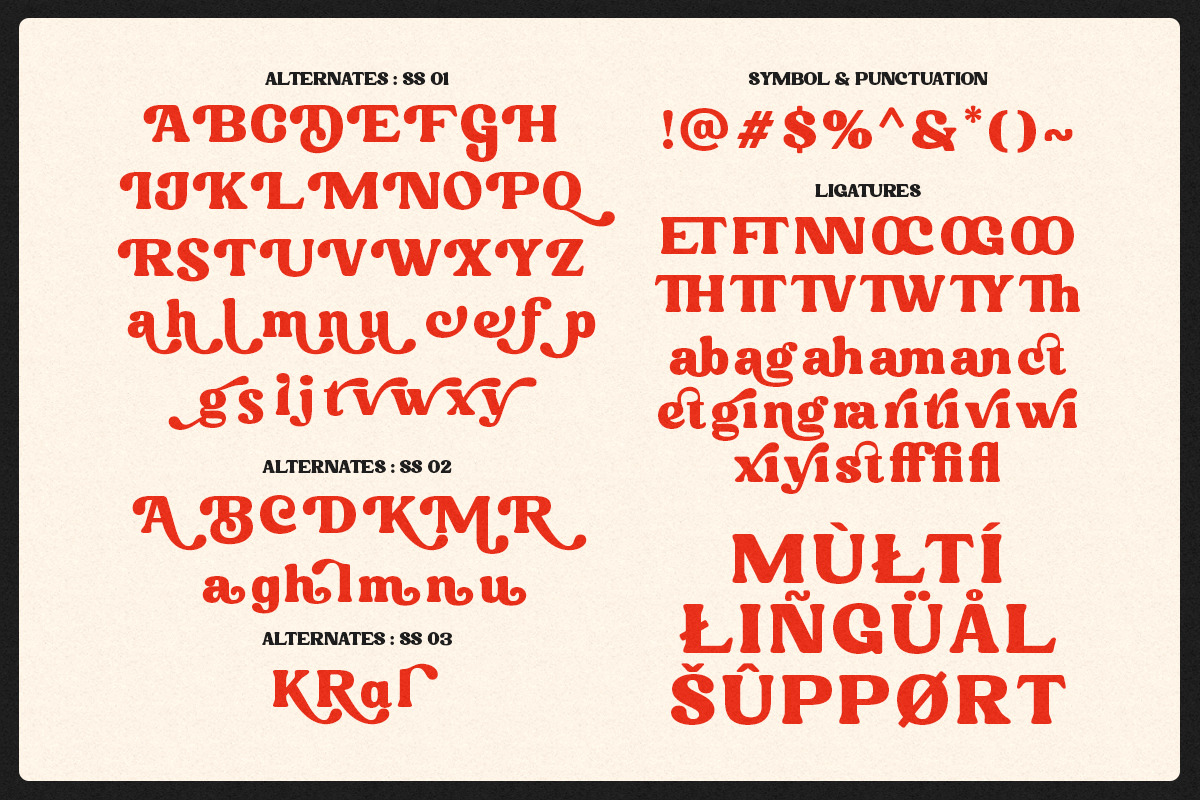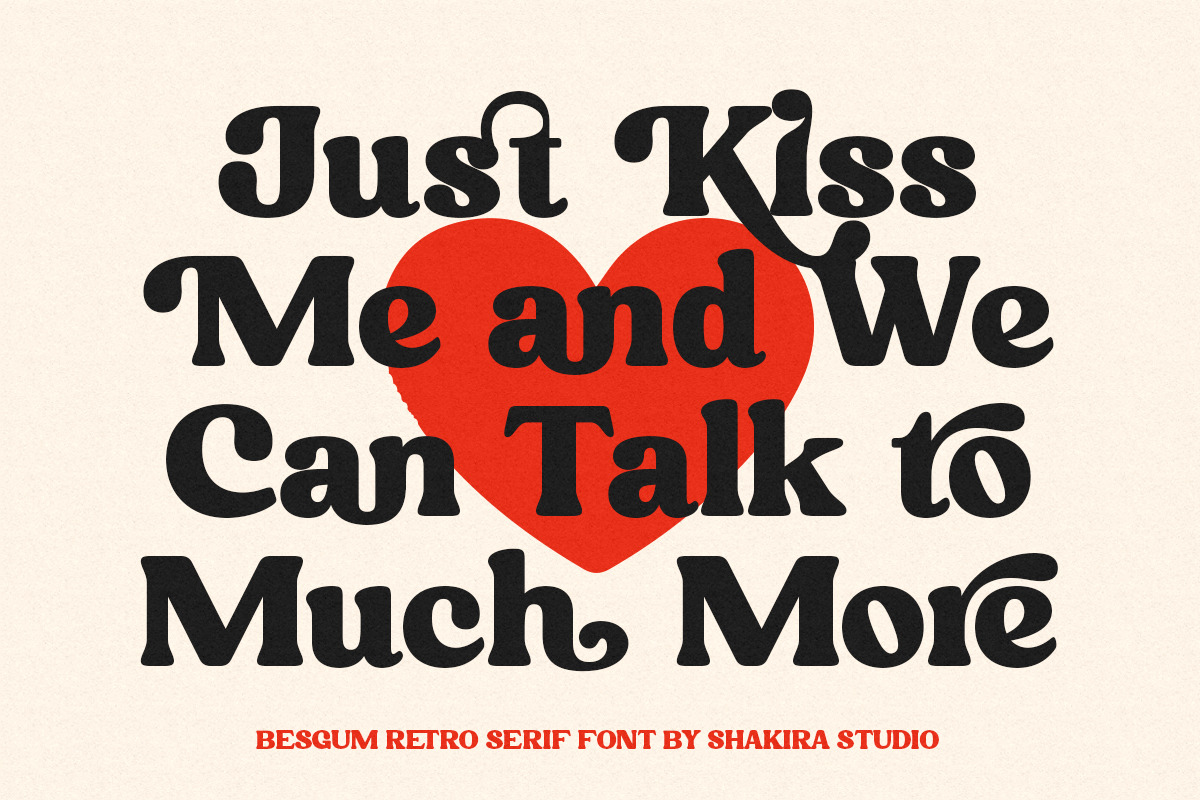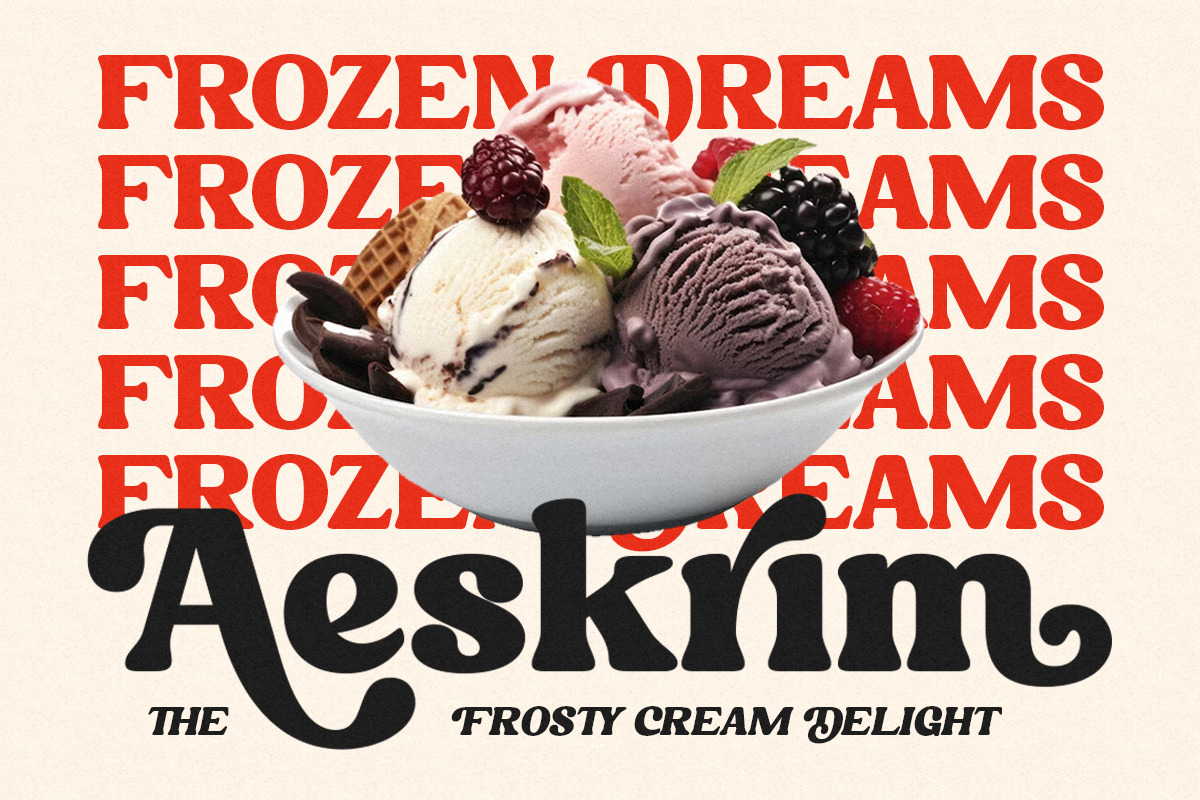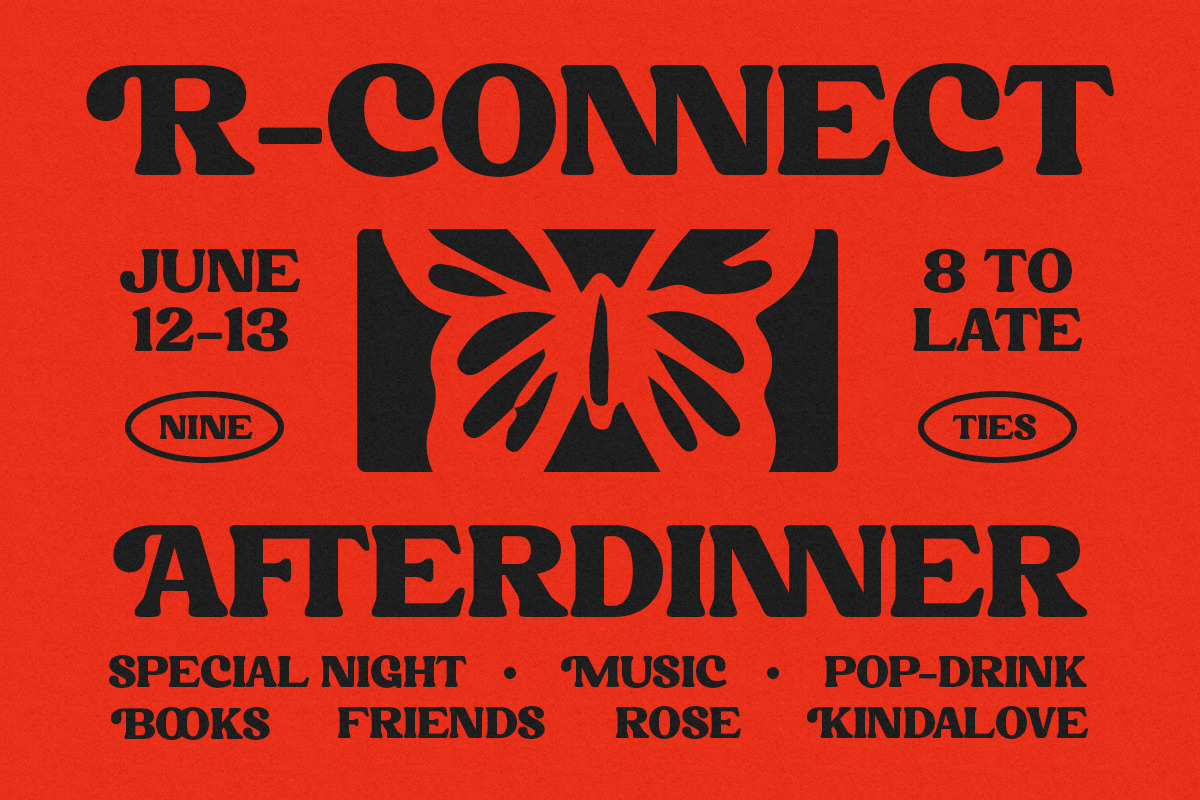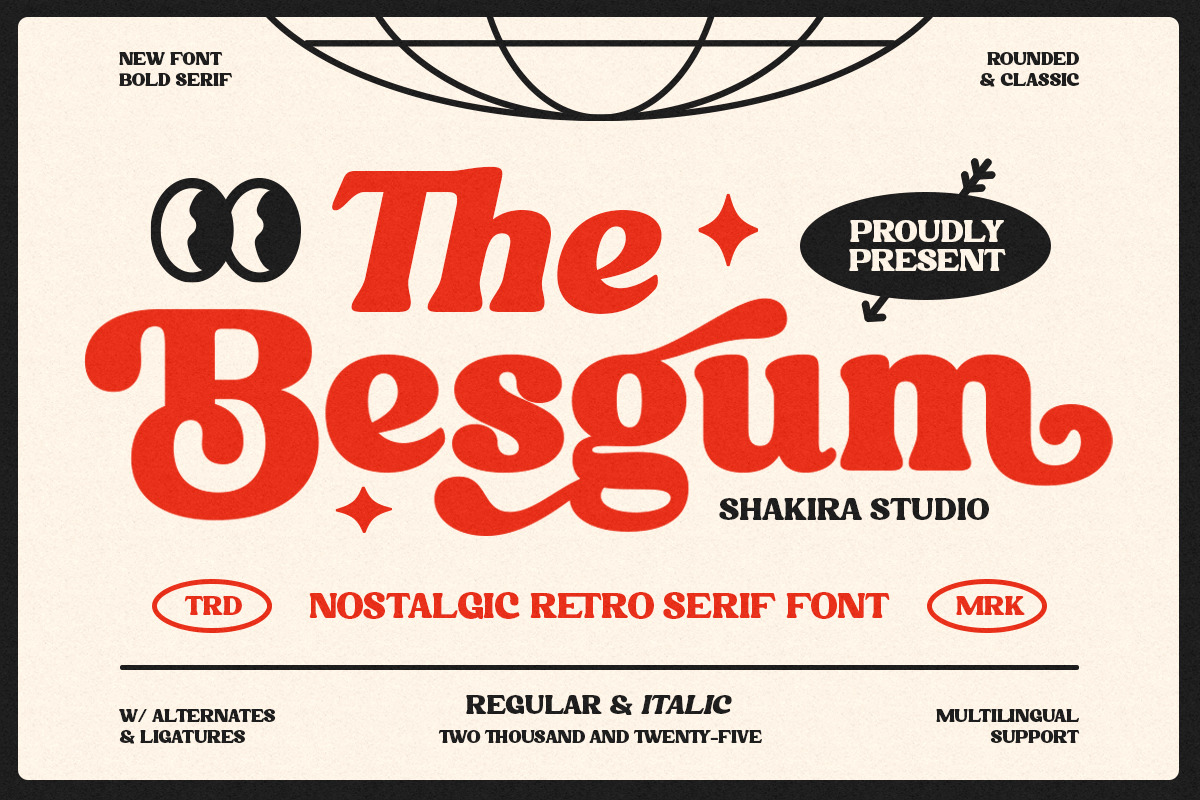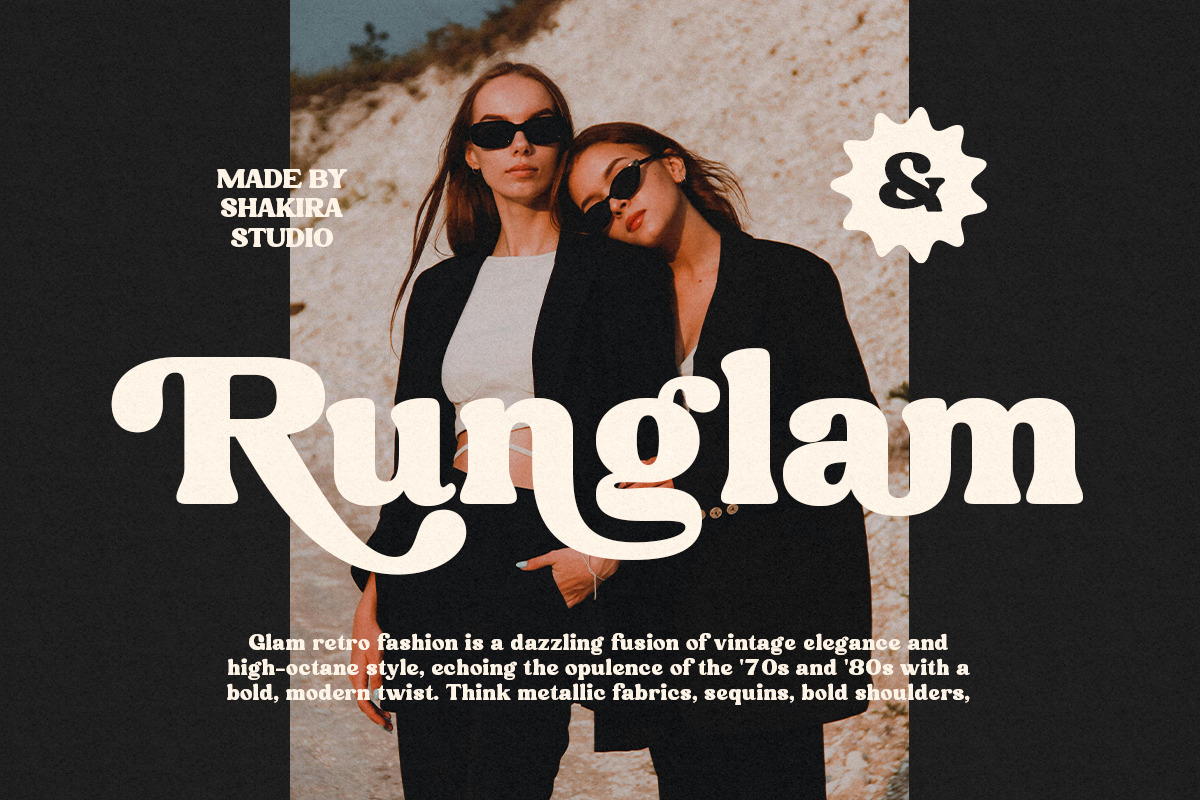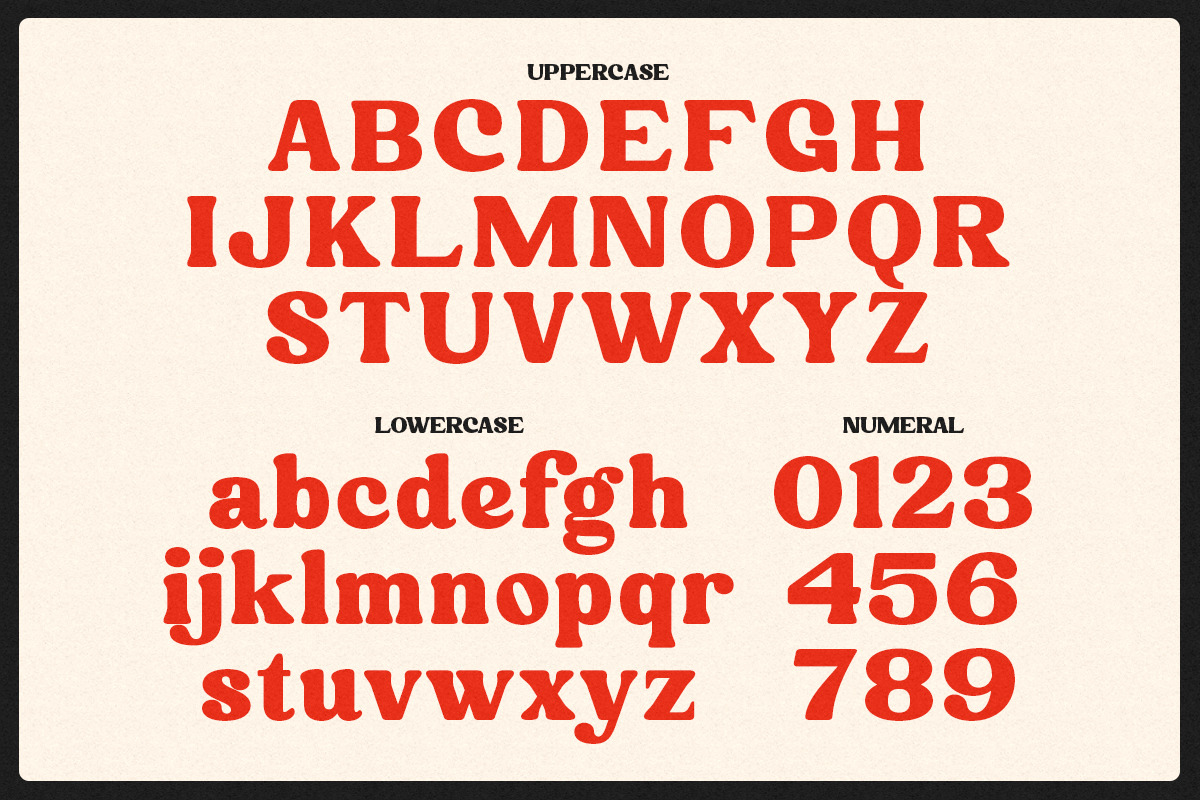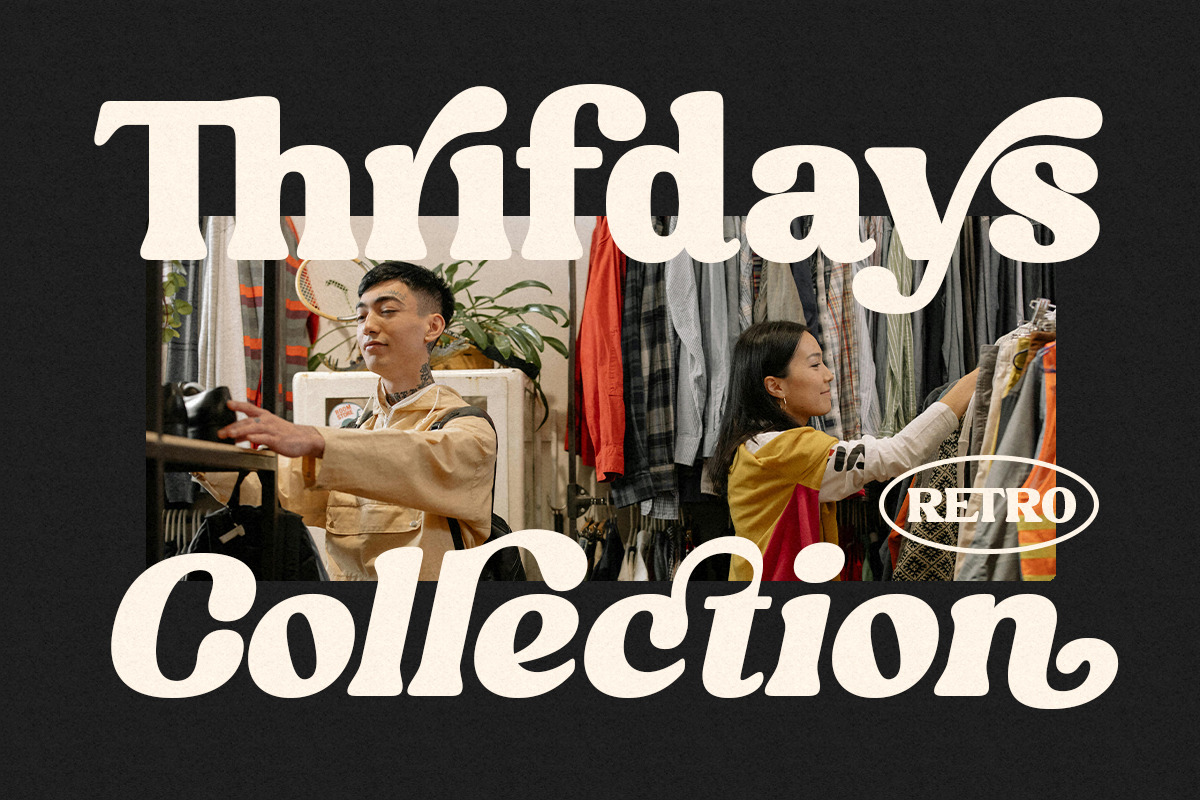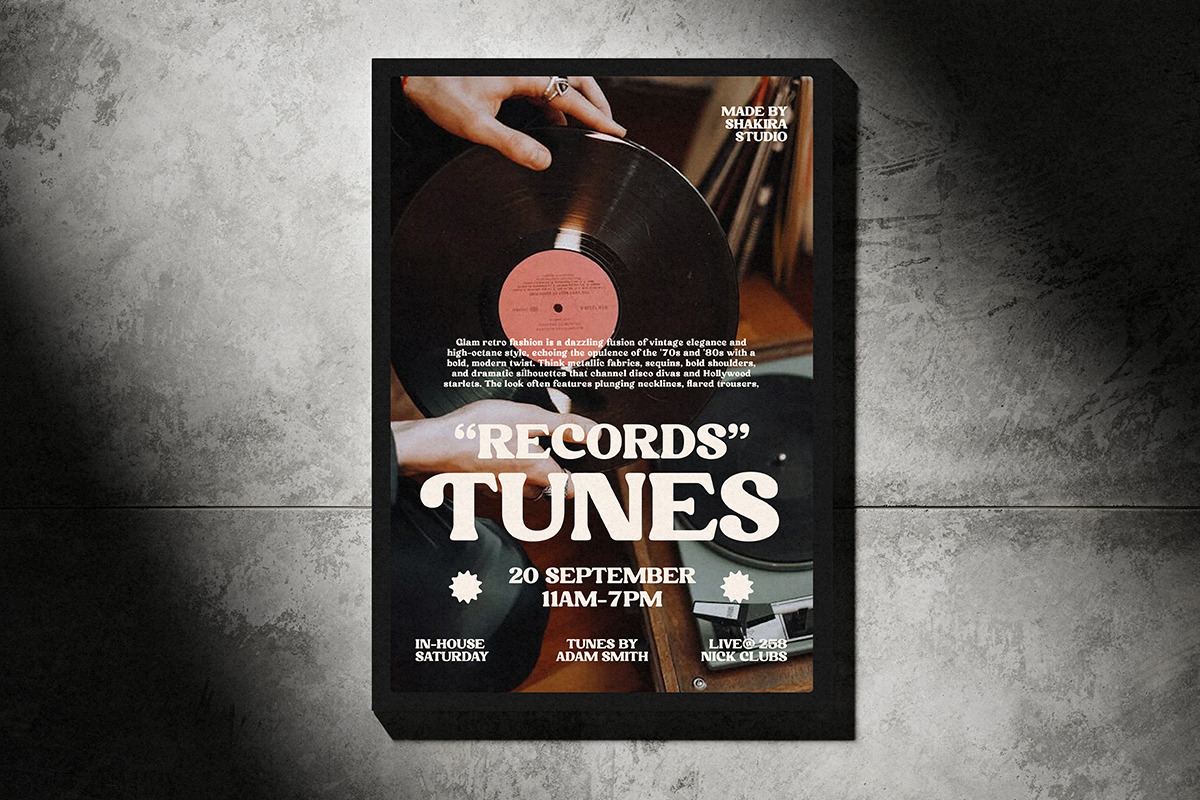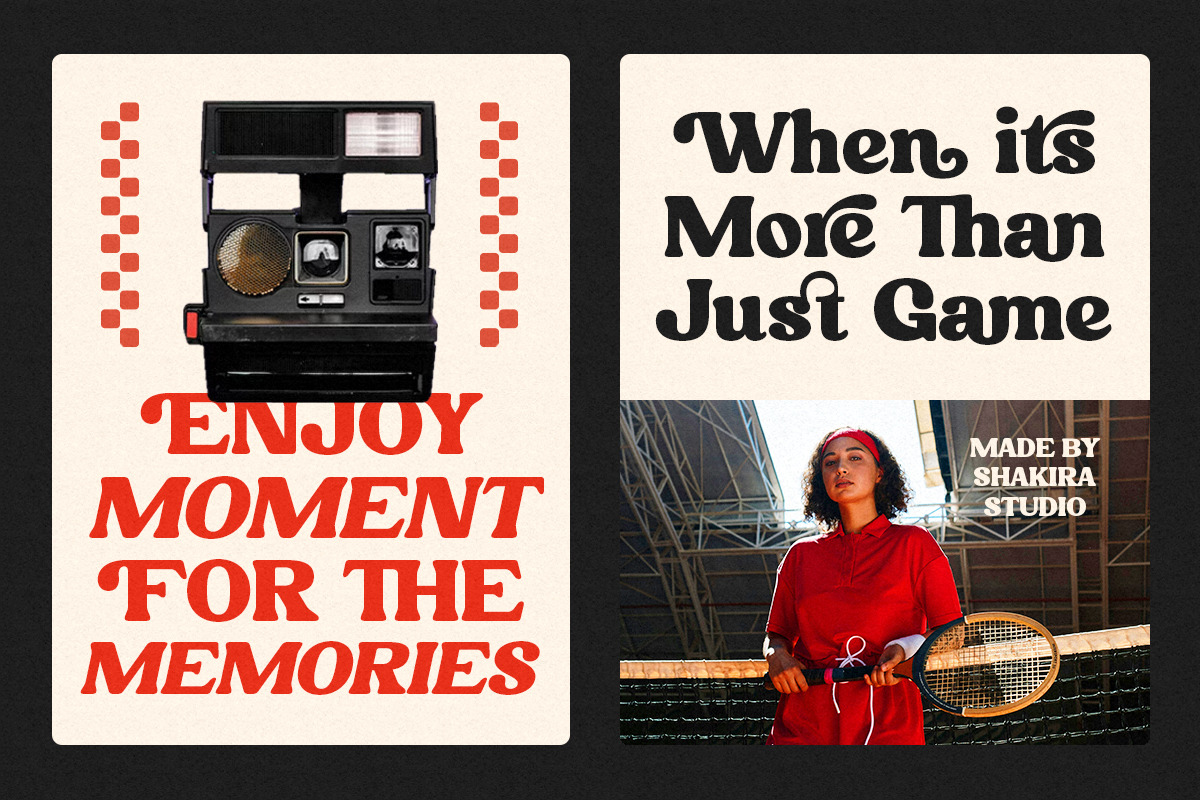
Besgum - Bold Retro Serif Font
Introducing The Besgum – a bold nostalgic serif with chunky curves, vintage warmth, and expressive energy.
Inspired by retro letterforms from the '60s and '70s, The Besgum channels the golden era of signage, packaging, and pop culture typography. It’s soft, loud, and irresistibly funky.
Designed for creators who love personality-packed letters with vintage vibes and bold presence.
Whether used on branding, posters, logos, or merch, The Besgum brings instant charm and a throwback character to every project.
- Alternates & quirky ligatures
- Regular & italic styles
- Vintage branding & nostalgic packaging
- Music posters & record labels
- T-shirt graphics & merch drops
- Editorial design & lifestyle magazines
- Social media visuals & quotes
- Retro logo design & signage